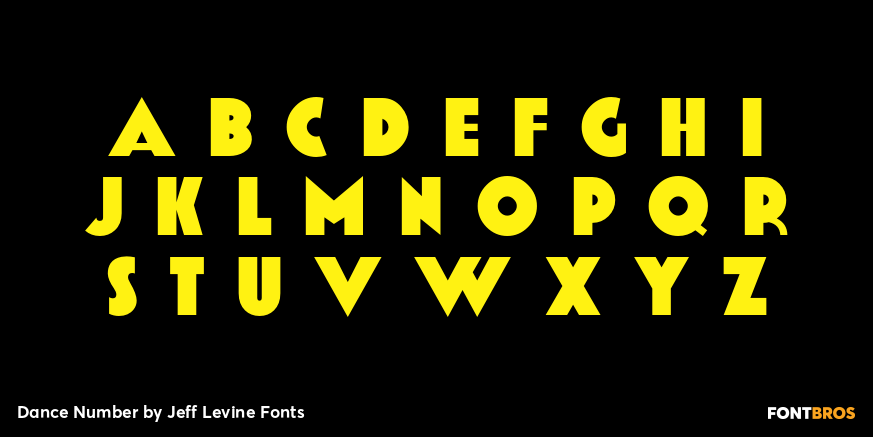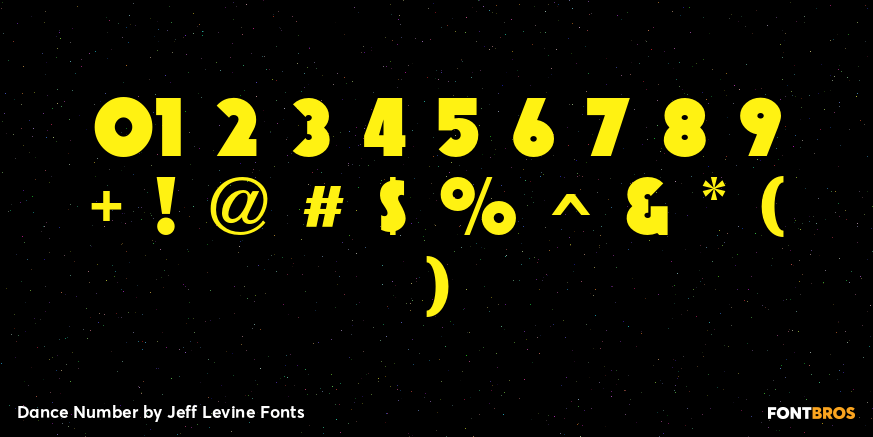
Dance Number
Vintage sheet music for the song 'Just Once for All Time” (from the United Artists release 'Congress Dances”) provided the bold sans that served as the model for Dance Number JNL.
This 1932 film was the English language version of the German comedy 'Der Kongreß tanzt.
The movie's plot is based around the Congress of Vienna. There, an Austrian commoner is mistakenly thought to be the Tsar of Russia.